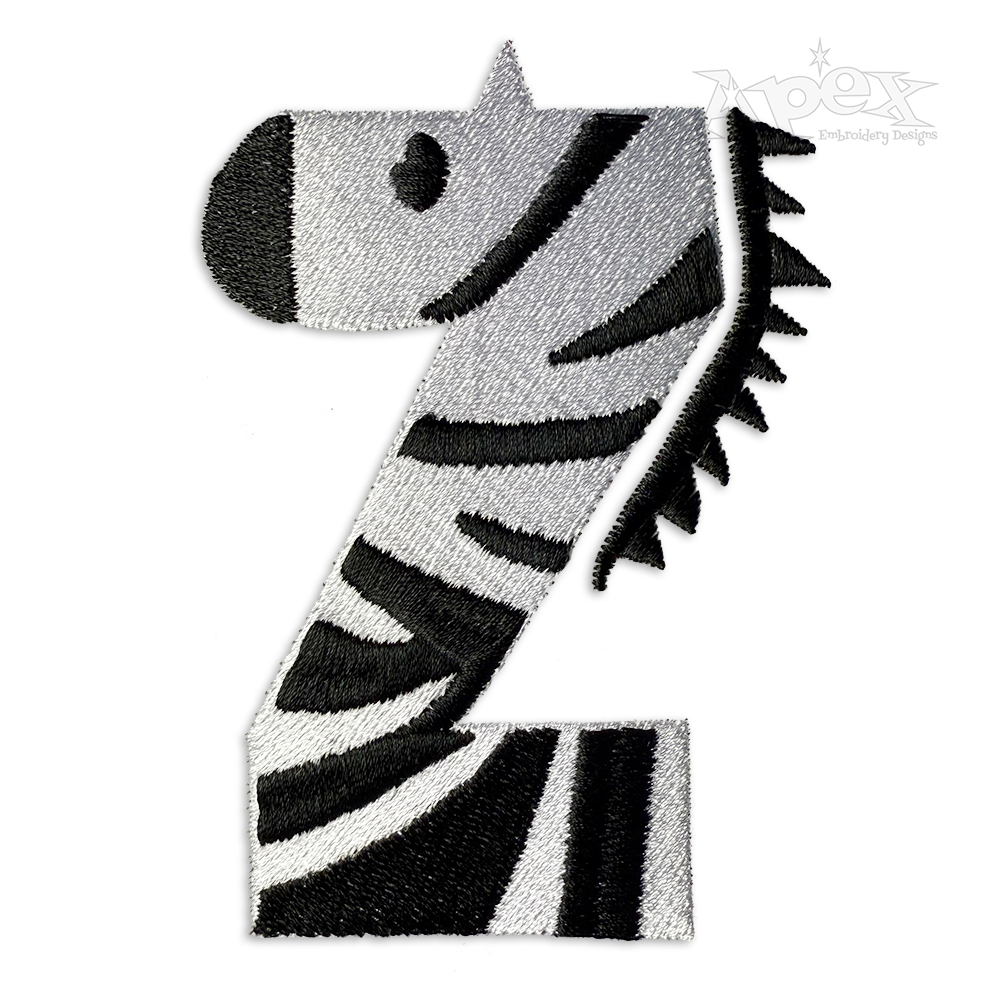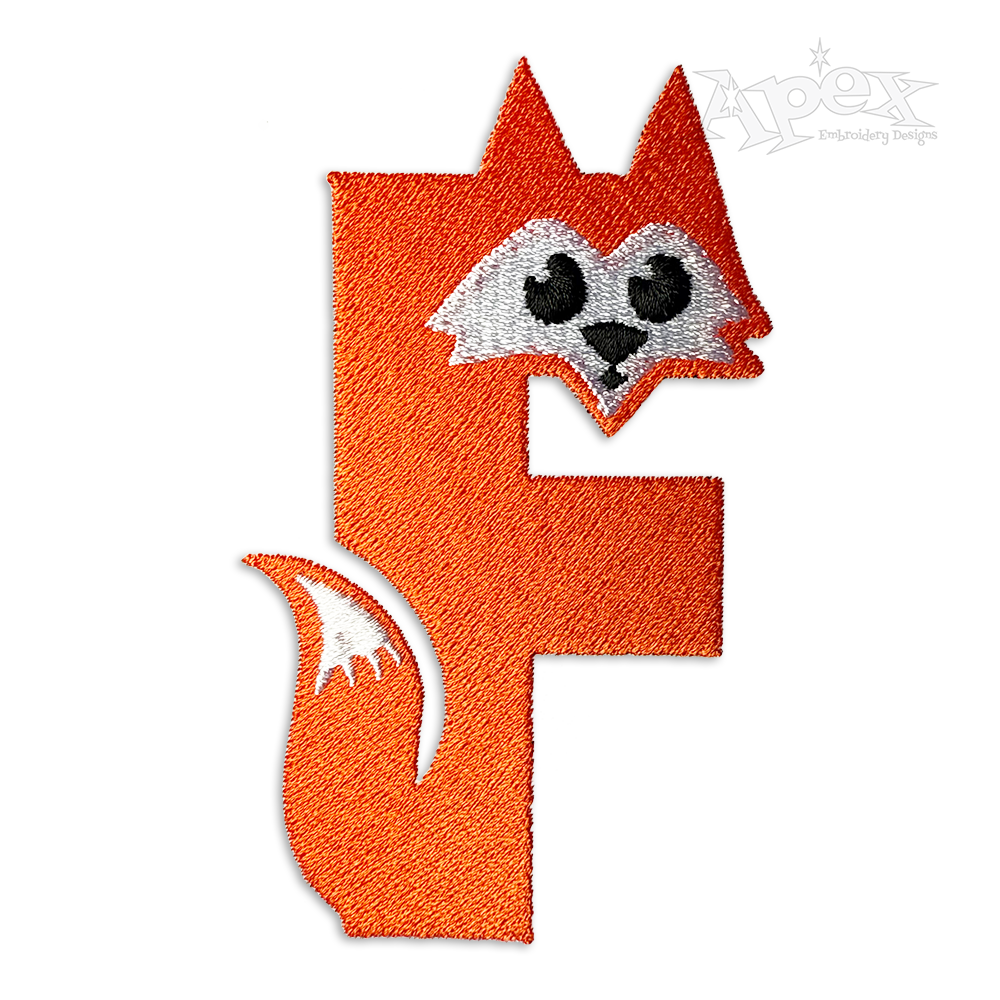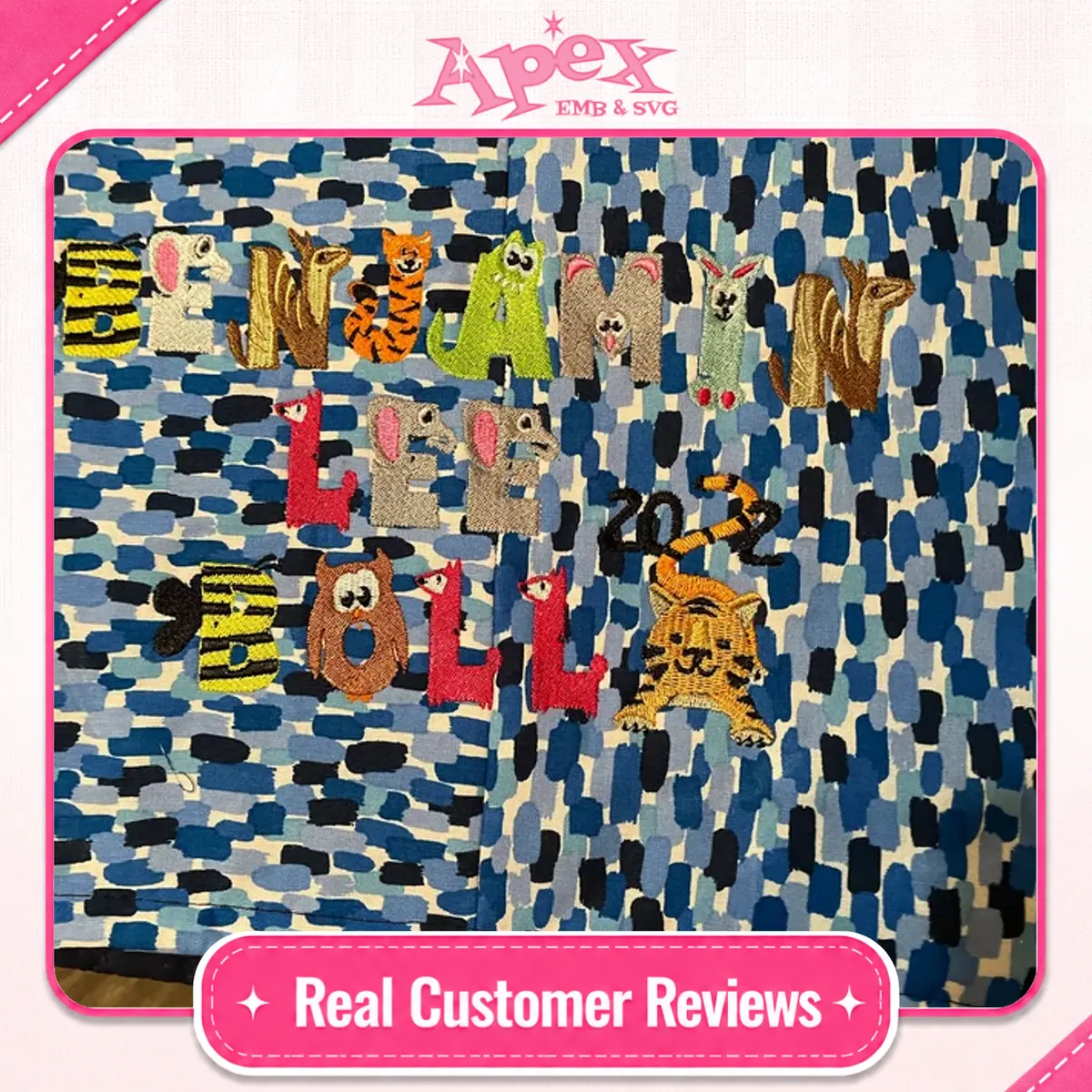
Animals Alphabet Embroidery Font
Playful wonder meets meticulous needlecraft in this wild animal alphabet. Whimsical zoo creatures merge seamlessly into bold typography, turning classic monogramming into a lively childhood celebration. Every letter comes alive through thoughtful thread sculpting: clever foxes shape sharp diagonals, gentle elephants sweep textured trunks into proud uprights, and coiled serpents wind through fluid curves. Designed for bespoke children's gifting and heirloom nursery embroidery, these motifs deliver vibrant motion, tactile charm, and distinctive artisan character to fine textiles.
- Alphabet Set: 26 uppercase letters featuring integrated zoo animal illustrations (lowercase not included).
Project Ideas for Animals Alphabet
This expressive animal monogram alphabet lends whimsical personality to personalized gifting and children's decor:
- Heirloom Nursery Bedding: Stitch statement animal initials across linen baby quilts, crib duvets, and boudoir pillows.
- Custom Children's Apparel: Personalize denim jackets, toddler rompers, knit sweaters, and sunsuits with playful wildlife monograms.
- School & Daycare Essentials: Adorn canvas backpacks, book totes, lunch bags, and pencil cases for distinct, recognizable gear.
- Keepsake Reading Pillows: Embroider animal letterforms onto reading cushion pockets to celebrate early literacy.
- Center Chest: Feature 2.5-inch or 3.5-inch letters prominently on children's sweatshirts, rompers, and knitwear.
- Corner Diagonal Accent: Angle a single initial across corner hems of baby blankets, swaddles, bibs, and plush bath towels.
- Pocket Center: Position the compact 1.5-inch size directly onto overalls, preschool jackets, or canvas tote pockets.
- Linear Word Accents: Arrange smaller letters horizontally along nursery valances, decorative toy baskets, or pillow borders.
Animals Alphabet Craft & Letterform Details
Digitizing detailed creature illustrations within rigid alphabet geometry requires disciplined stitch engineering. Solid underlay foundations stabilize each animal silhouette, preventing fabric distortion while maintaining a soft, pliable hand. Tactile zebra striping, alert fox ears, expressive eyes, and spotted giraffe coats layer over structured letterforms with carefully calibrated satin stitch transitions. Thread pathways follow the natural contours of each creature's form, capturing light across fine cotton, linen, and pique. Pull compensation was hand-adjusted across all three scales, keeping straight stems architectural and organic curves expressive and readable.